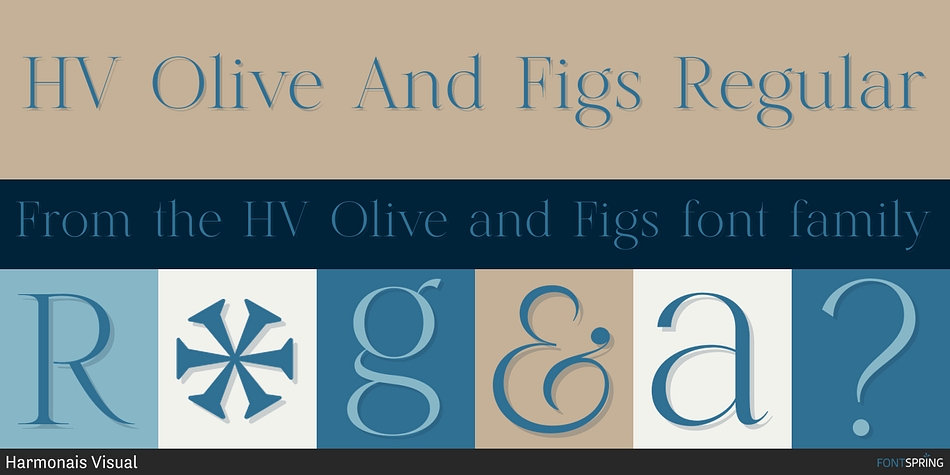
HV Olive And Figs Regular
Designed by Max Duy T., HV Olive and Figs is a display serif font family. This typeface has two styles and was published by Harmonais Visual.
Olive & Figs - a classic Roman-culture-inspired calligraphic serif with an elegant, regal, artistic touch. Specially designed for regal, classy projects, perfectly suitable for creating elegant, simple, lifestyle designs such as logos, title, packaging, and more. This typeface comes along with 6 free logo templates.